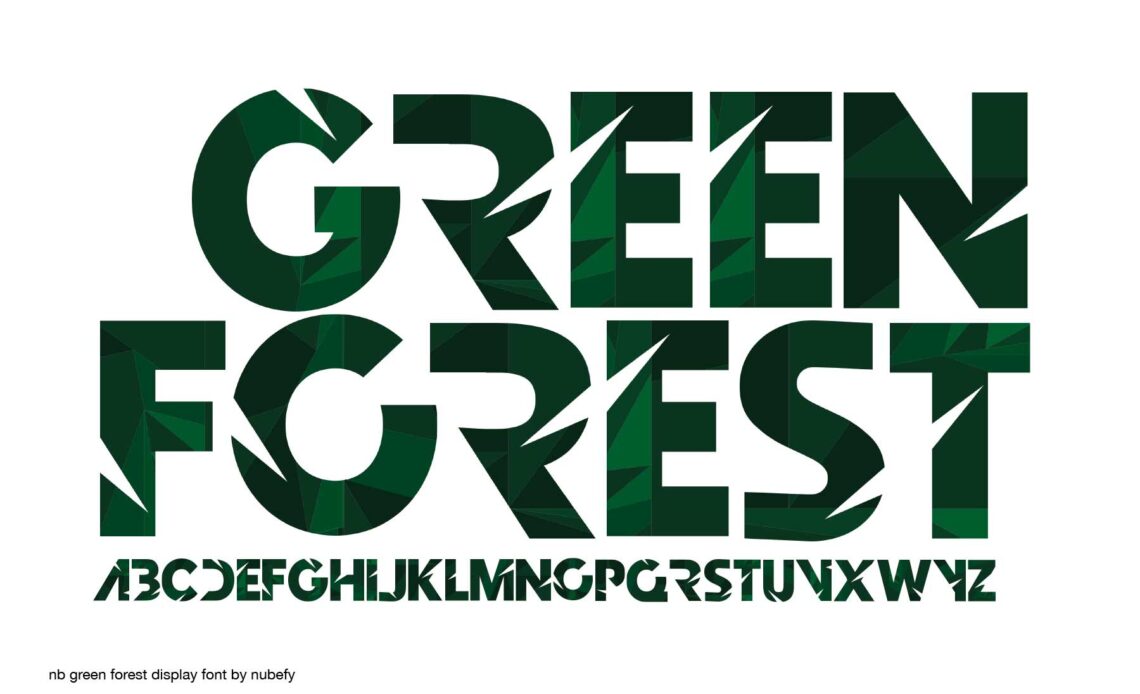
Embrace the captivating charm of Green Forest Font, a vibrant and captivating display font that breathes life into your designs. Its palette of colors, meticulously crafted by the skilled hands at nubefy, dances across the page, igniting a symphony of emotions that will leave your audience spellbound.
Step into a world where words come alive, adorned with the hues of nature's splendor. Green Forest Font is a visual masterpiece that transforms ordinary text into extraordinary expressions, leaving an unforgettable mark on the hearts and minds of your readers. Let your words dance with the grace of a forest breeze, whispering tales of wonder and enchantment.
Unlock the boundless potential of Green Forest Font, a font that adapts seamlessly to your creative vision. Whether you seek to craft captivating headlines, design eye-catching logos, or create mesmerizing social media graphics, Green Forest Font rises to the occasion, delivering excellence in every stroke.
With Green Forest Font, the possibilities are endless. Its vibrant colors command attention, while its elegant design exudes a timeless sophistication. Experience the magic as your words leap off the page, captivating your audience with their radiant charm.
Welcome to a world where creativity flourishes, where words transform into works of art. Let Green Forest Font be your guide, leading you down a path of imagination and boundless possibilities. Join the creative revolution and witness the transformative power of Green Forest Font.